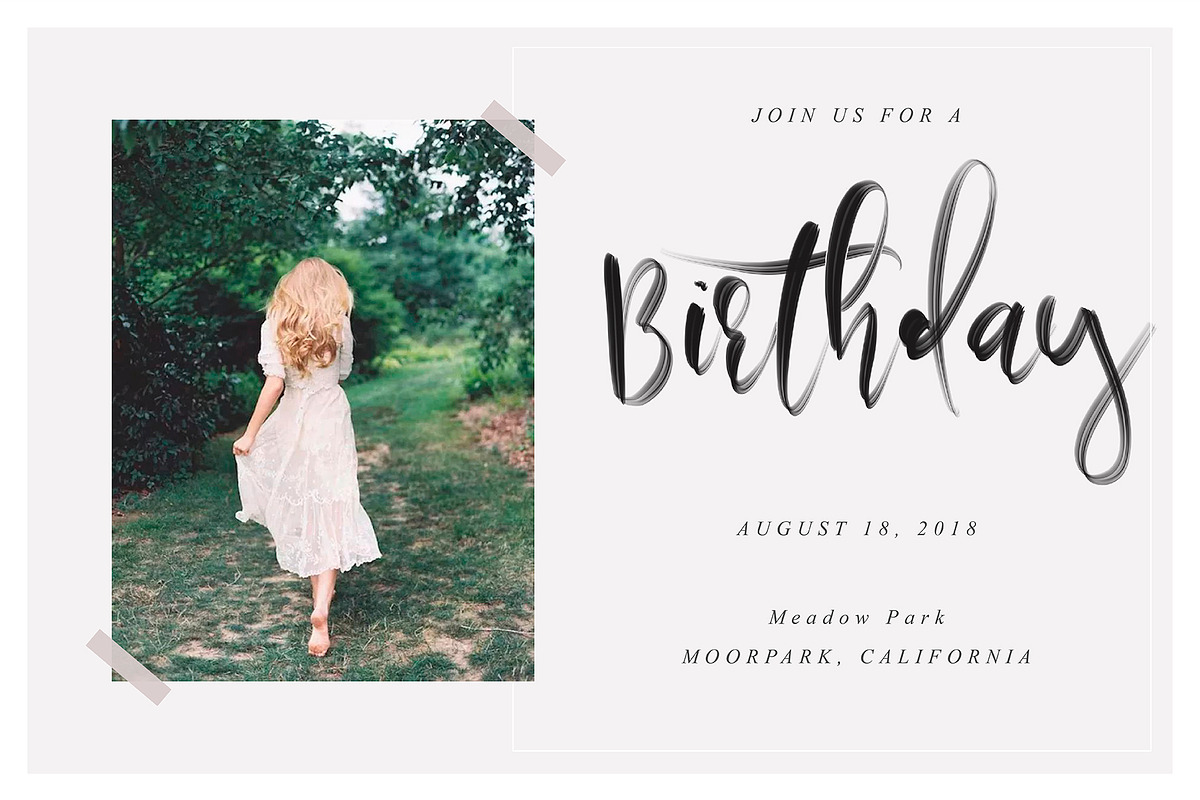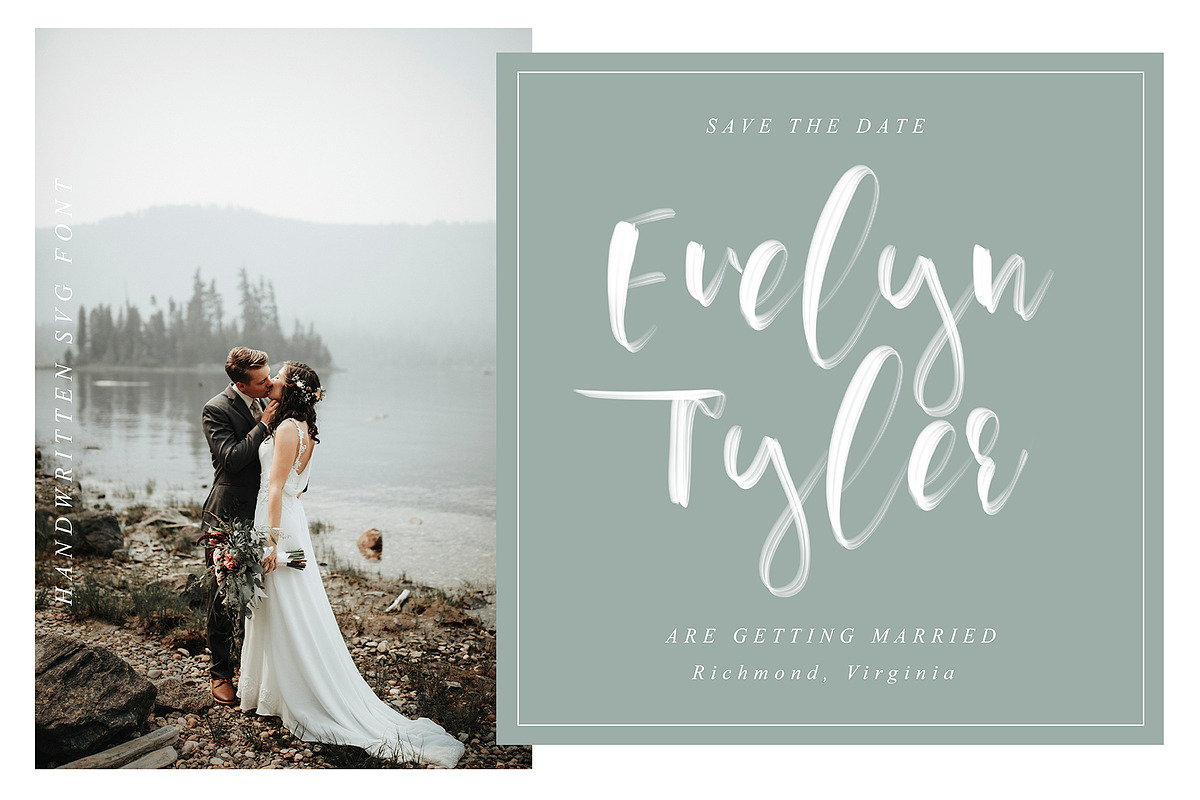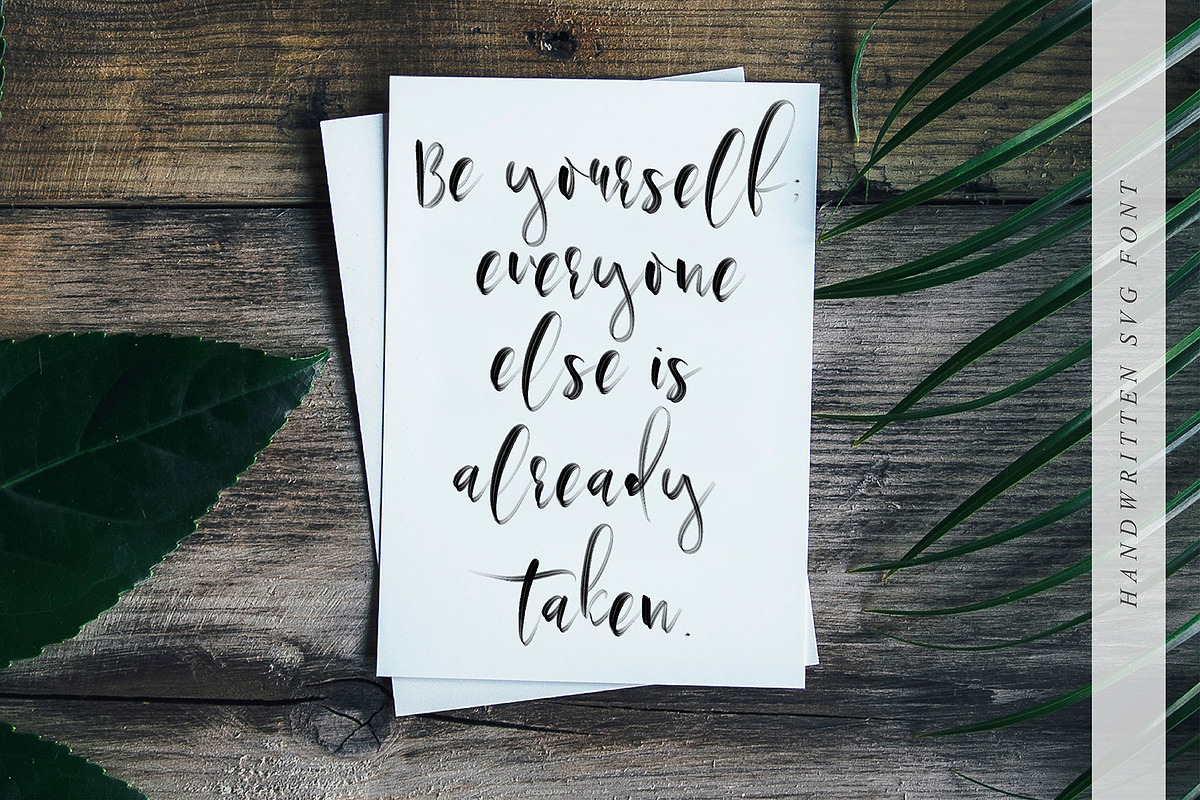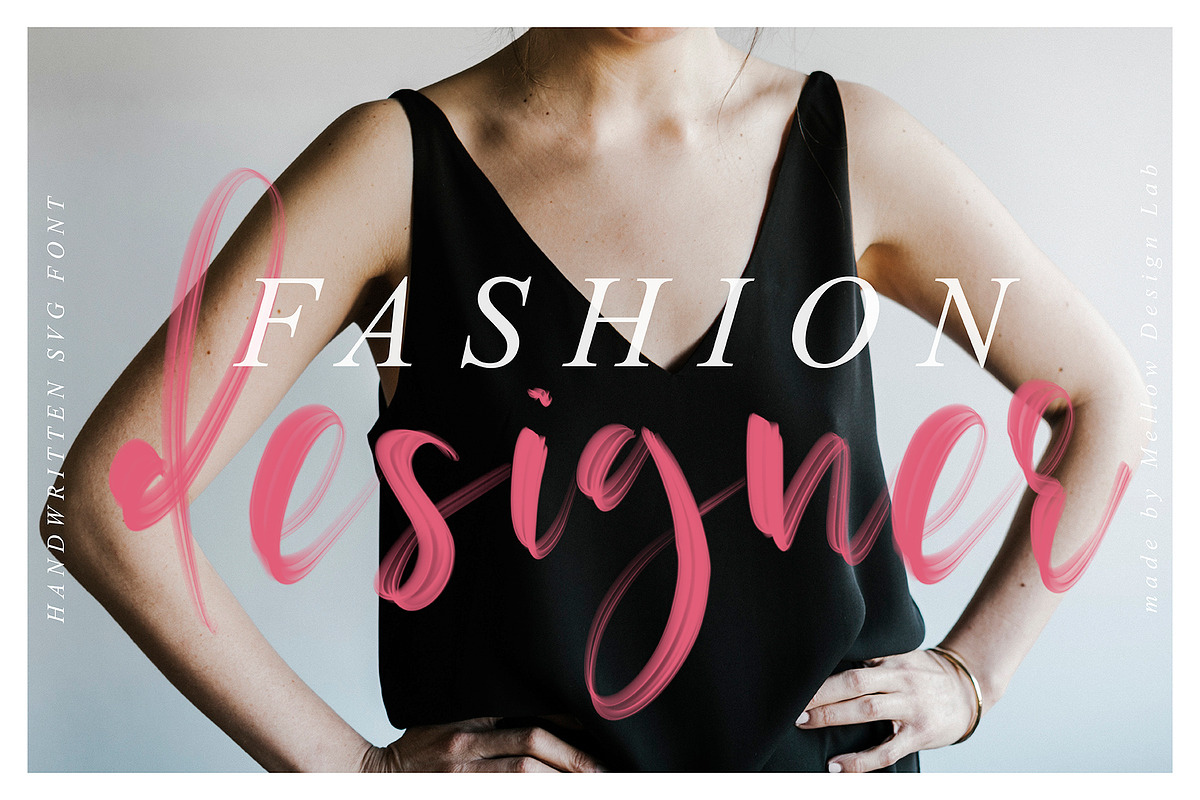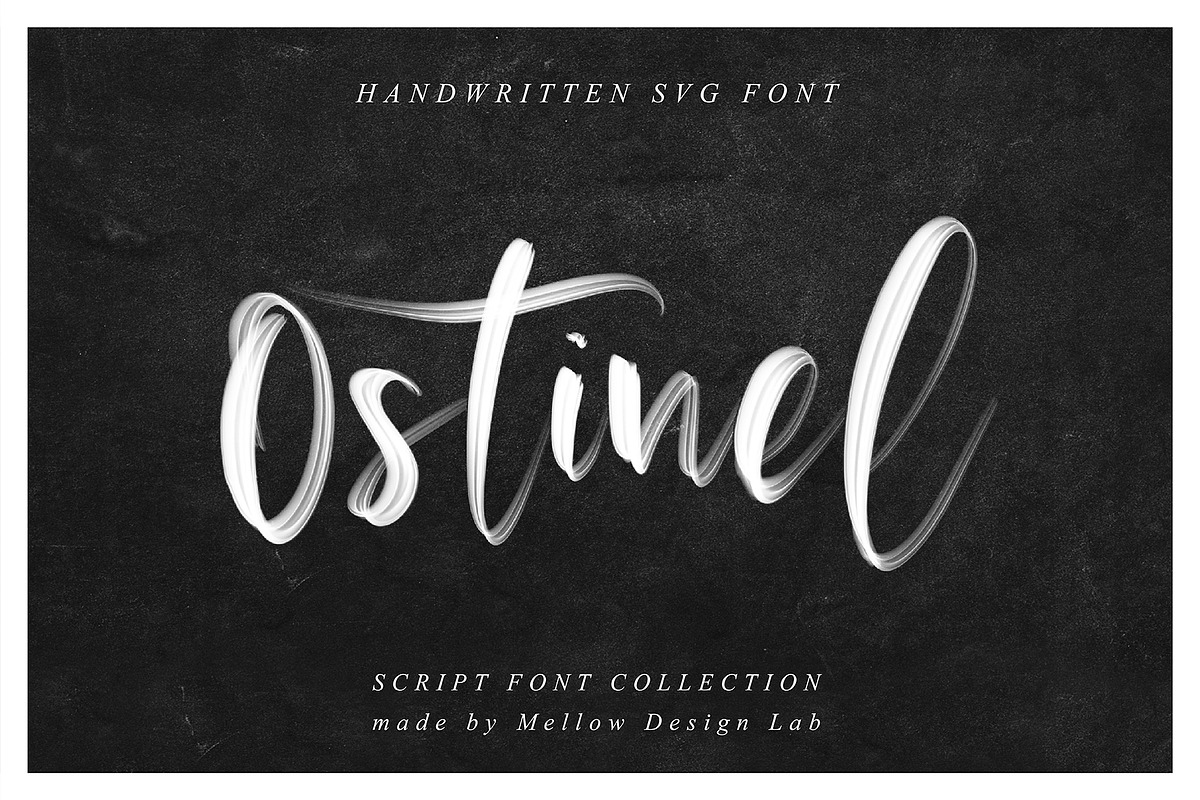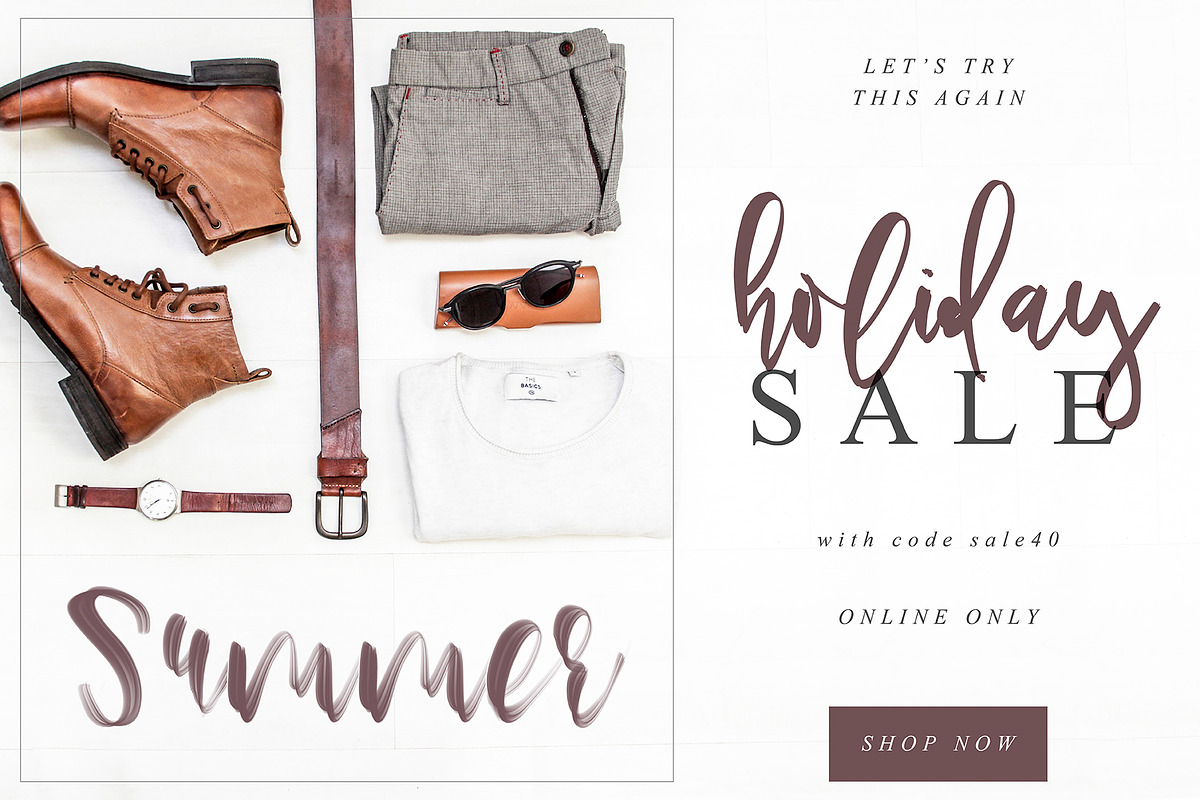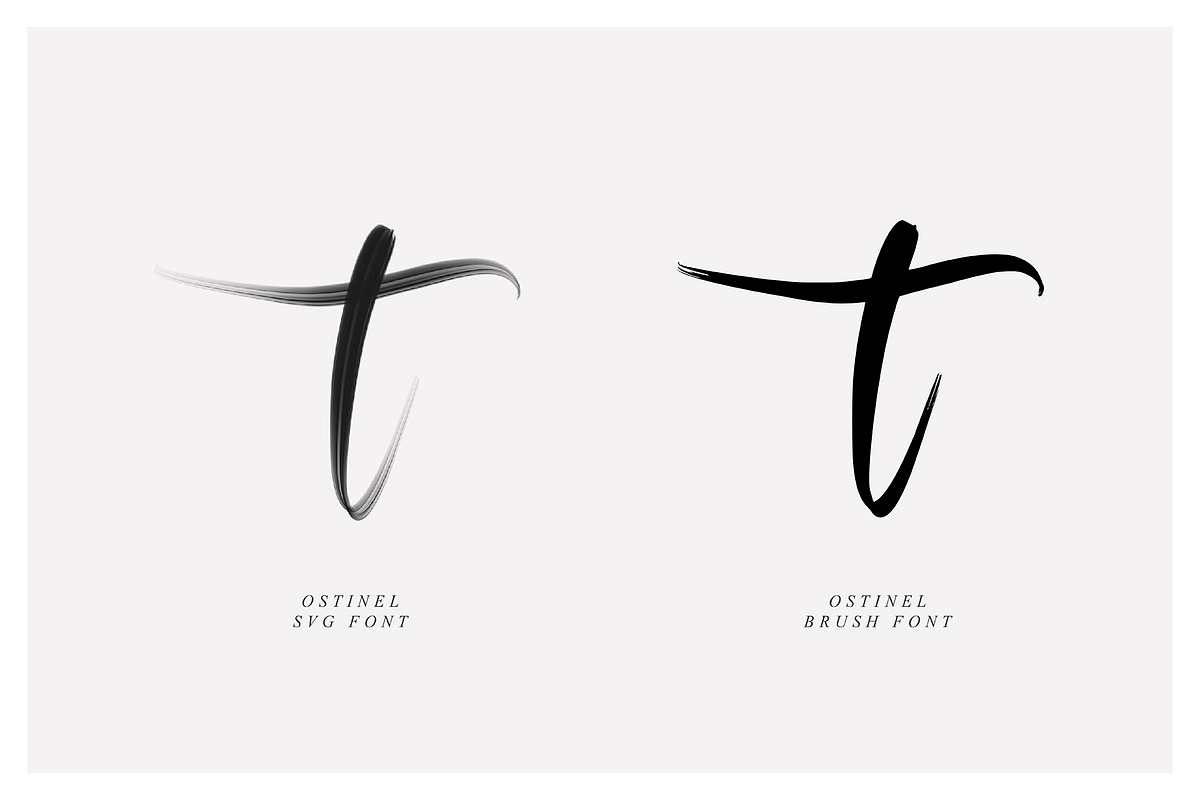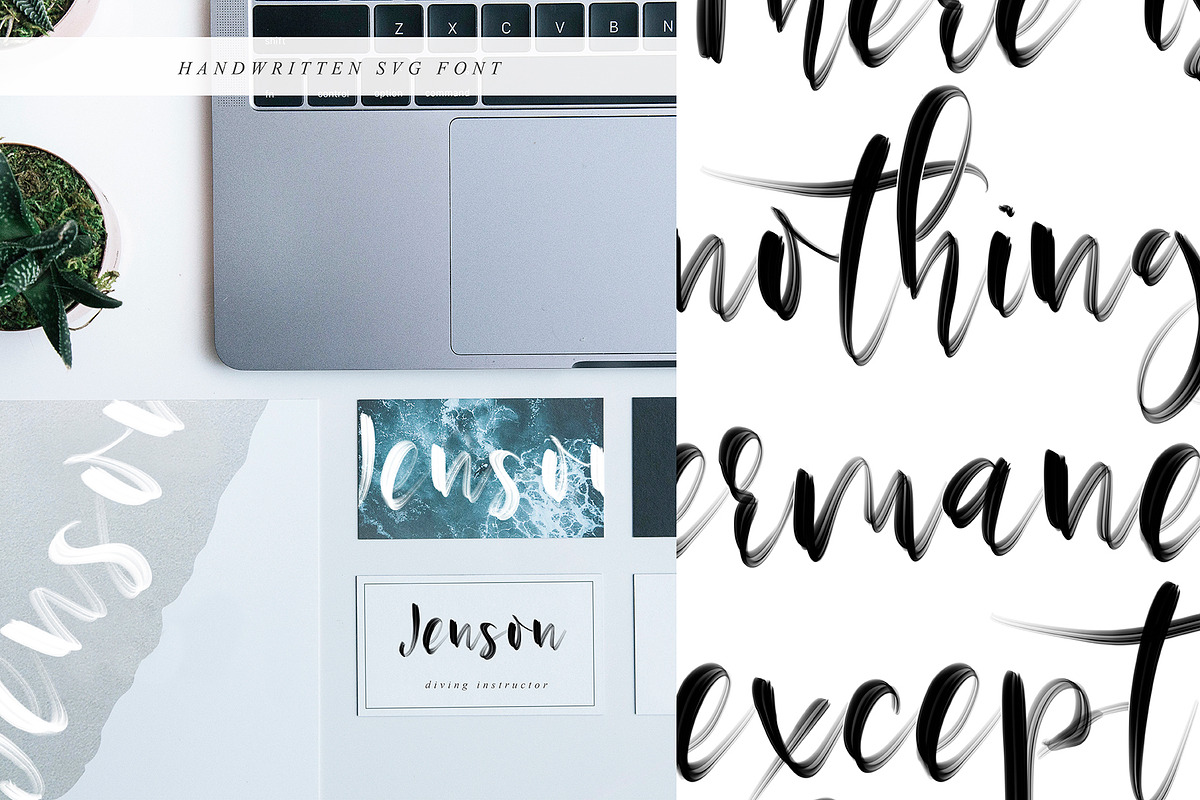
Ostinel SVG Font
Font that will give tenderness to your project. Written by hand, it preserves transparency and texture. Combine it with other fonts and add style in your project. This handwritten font is ideal for branding and decorate your any project.
This font are perfect for wedding invitation or your blog. Also with their help, you can create a logo or beautiful frame for your home. Or just use for your small business, book covers, stationery, marketing, magazines and more.
Ostinel SVG Font by Creamy Script fits naturally into Branding, posters, packaging, typography.